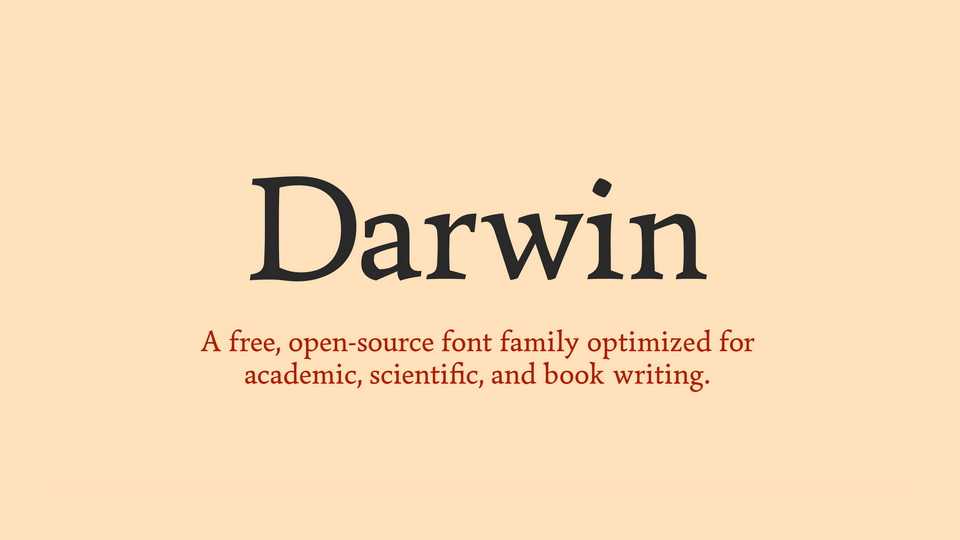
Download Darwin font, a serif typeface for books and articles, with a focus on academic and scientific writing. Darwin font offers a clean and structured appearance that aids in comprehension and retention of information.
Designer: Emily de Oliveira Santos